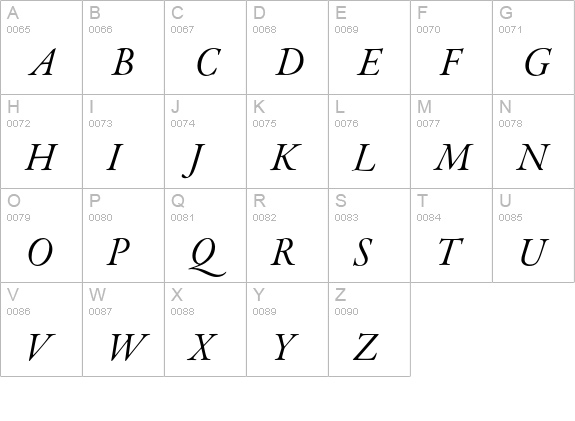
Garamond Premier Pro Italic Subhead Font Details
Garamond Premier Pro Italic Subhead is a distinctive, italic variant in the Garamond typeface family \xE2\x80\x94 well suited to design and typography projects.
Garamond Premier Pro Italic Subhead font exudes elegance and sophistication with its distinctive italicized style. Perfect for adding a touch of flair and emphasis to your designs, this font strikes a harmonious balance between tradition and modernity. The flowing curves and delicate serifs of Garamond Premier Pro Italic Subhead convey a sense of refinement and grace, making it an ideal choice for subheadings and emphasis in various projects. Moreover, you'll be delighted to know that this exquisite font is available for free download at FontsMarket.com. Embrace the beauty and versatility of Garamond Premier Pro Italic Subhead to elevate your designs and captivate your audience. Let your creativity shine with this remarkable font that seamlessly blends classic charm with contemporary appeal.